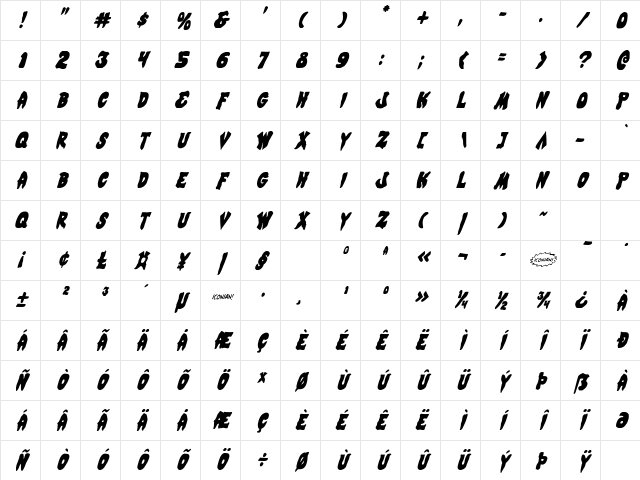
Mystic Singler CondItalic Regular
Design Context for Mystic Singler CondItalic
Mystic Singler CondItalic is a composed and adaptable typeface that performs quietly and consistently across a wide range of design contexts. The slanted form adds forward momentum and visual energy. Its narrow stance lets it pack a punch even in space-constrained designs.
Pro Tip: Use Mystic Singler CondItalic for emphasis, pull quotes, and subheadings where its slanted energy can add rhythm to the layout.